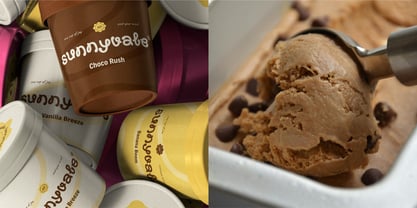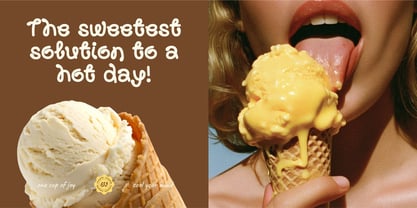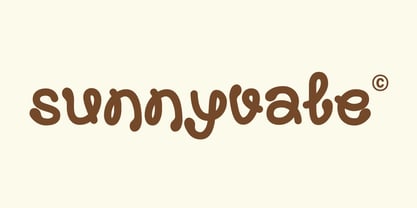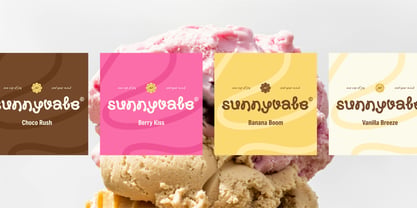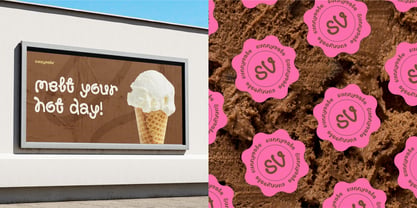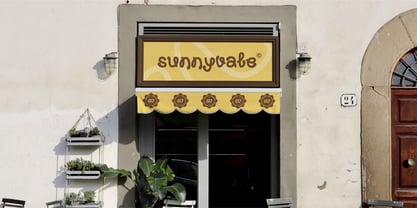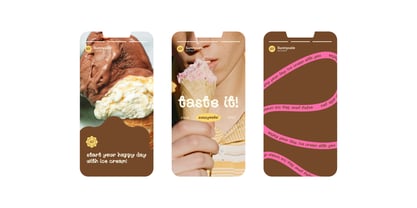
Sunnyvale
von Slidehack
Die Schriftfamilie Sunnyvale wurde von Excellent Ritma Florendia entworfen und von Slidehack veröffentlicht. Sunnyvale enthält 1 Stile. Mehr über diese Familie
Sunnyvale - Decorative Display Font delivers a playful and organic vibe, making it a perfect choice for branding, packaging, posters, and social media designs. With its unique handcrafted style, this font blends retro charm with a modern touch, helping your projects stand out. Ideal for designers who want bold, creative, and eye-catching typography that captures attention effortlessly.